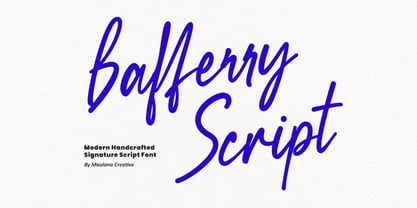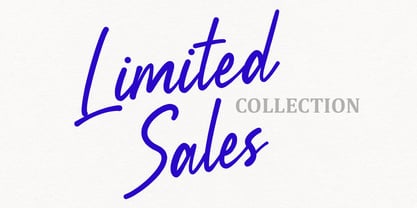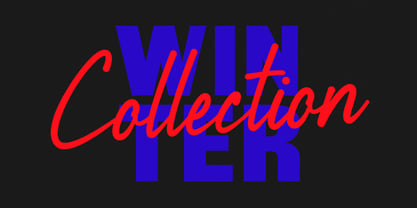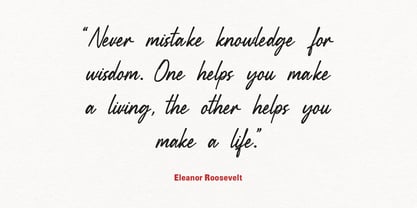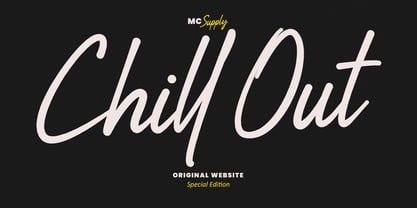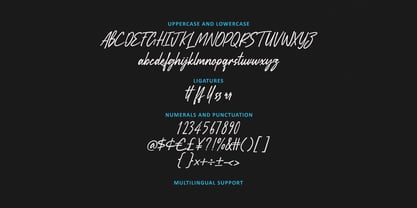
MC Bafferry
por Maulana Creative
La familia tipográfica MC Bafferry fue diseñada por Gilang Maulana y publicada por Maulana Creative. MC Bafferry contiene 1 estilos. Más información sobre esta familia
Elevate your designs with the authentic charm of Bafferry! Bafferry is a premium handwritten script font that strikes the perfect balance between casual elegance and modern street style. Featuring natural brush-like strokes and a fluid flow, this font is designed to give your projects a personalized, high-end feel. Whether you are working on a luxury brand identity, wedding invitations, or social media graphics, Bafferry provides an organic "hand-drawn" aesthetic that stands out. Its versatile character makes it ideal for logos, product, and stylish quotes. Perfect for: - Branding & Logo Design - Wedding Stationery & Invites - Fashion & Lifestyle Photography Overlays - Social Media Templates
Diseñadores: Gilang Maulana
Fundición: Maulana Creative